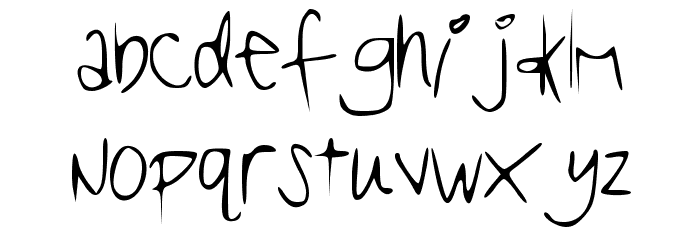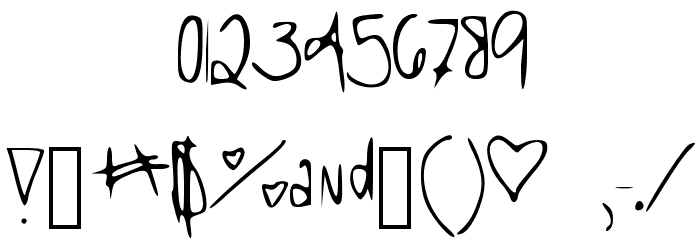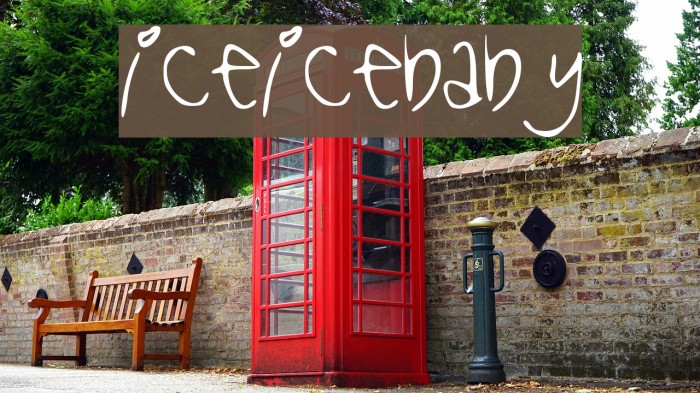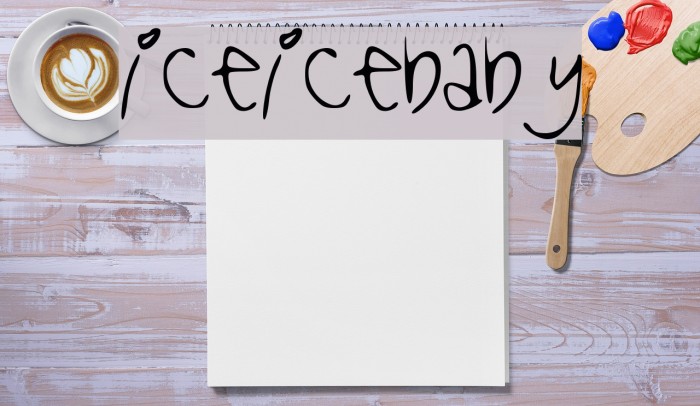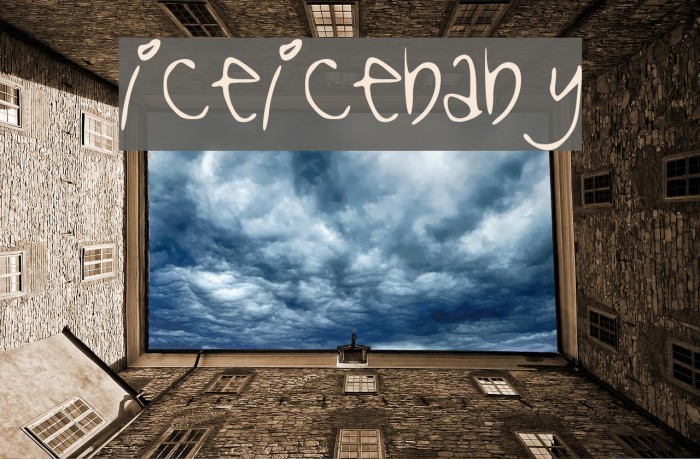
ice_ice_baby_ Font
This font features a playful and whimsical handwritten style, characterized by its irregular and dynamic strokes. The letters have a casual and informal appearance, with varying heights and angles that give it a lively and energetic feel. The uppercase and lowercase letters maintain a consistent flow, while the numbers and special characters complement the overall style with their quirky and unique forms. The font's distinctive personality makes it stand out, offering a sense of creativity and fun.
A playful, whimsical handwritten font with dynamic strokes and a lively appearance.
- Proposed Projects: Ideal for children's books, creative branding, playful invitations, and artistic posters.
- Overall Style: Playful